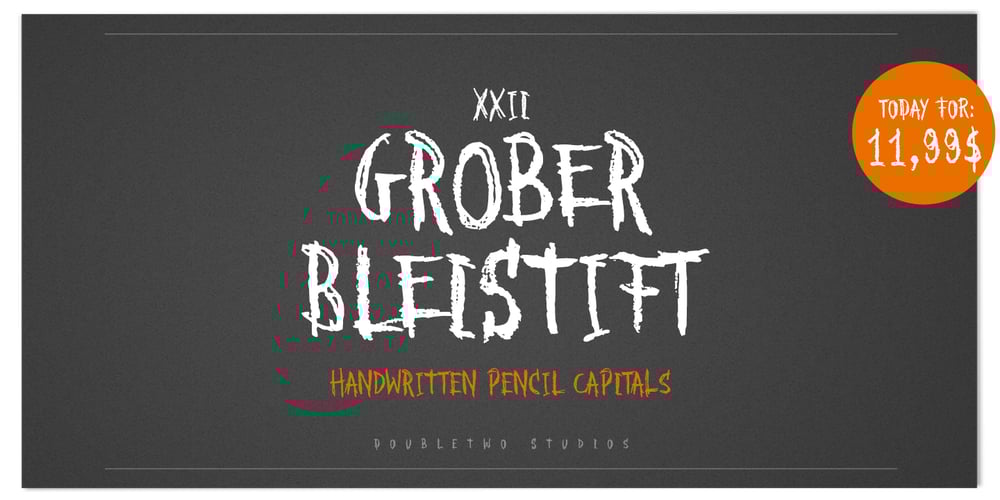
XXII Grober Bleistift Font Family was designed by Lecter Johnson and published by Doubletwo Studios. XXII Grober Bleistift contains 1 styles and family package options. Handwritten Pencil Capitals You need a simple pencil written look? There you go. Maybe the Bleistift fulfills your needs. It’s perfect to use on notes or handwritten lookalike products. The font uses the calt-OpenType-feature to replace every second lowercase with an alternate. This makes the look way more handwritten. Extended detail on behance.net.